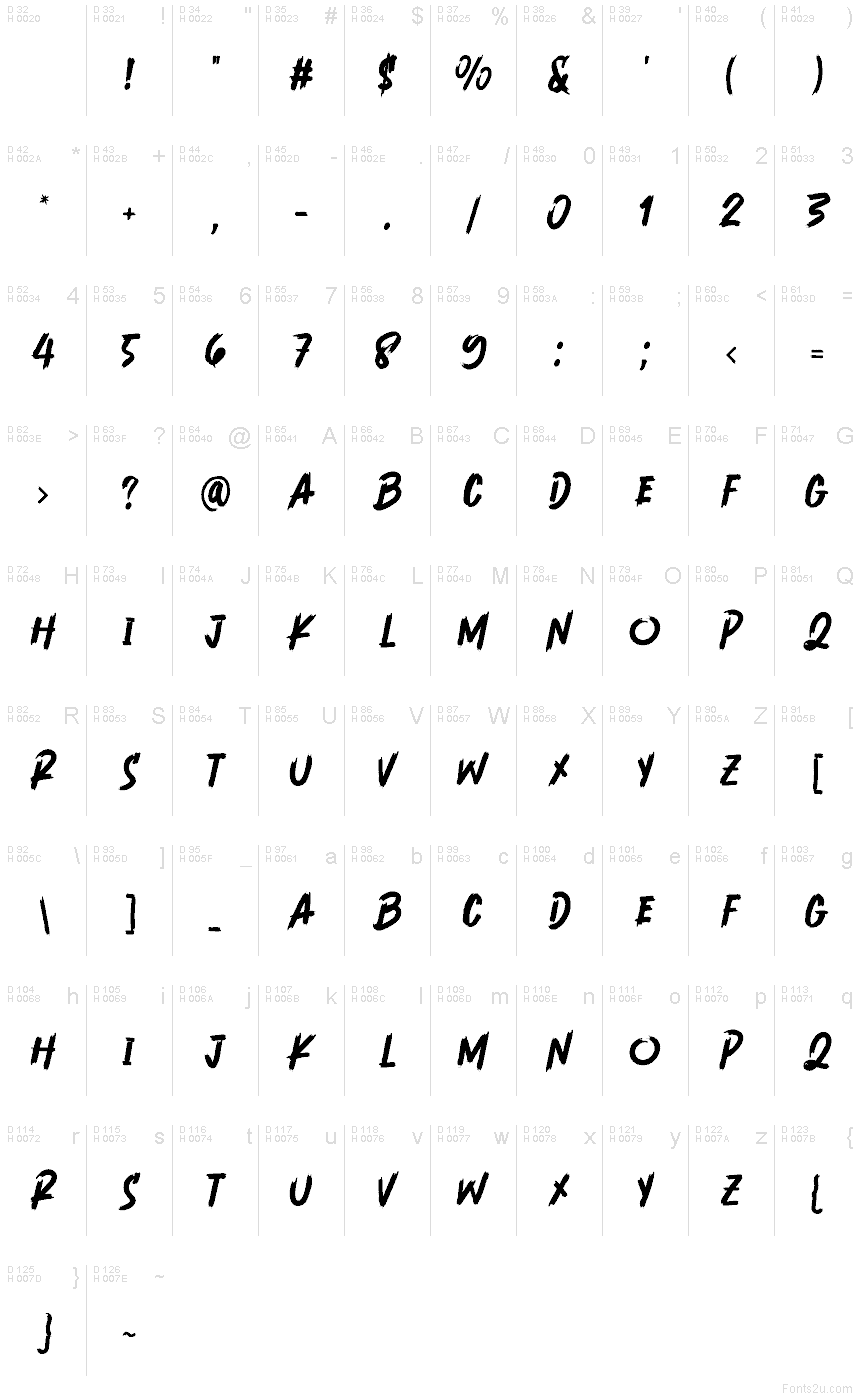
Stockport Brush font by Trequartista Studio is a free brush display font. Built for when you need hand-painted punch without sacrificing clarity, it gets the balance right between raw, inky texture and steady spacing. Thick swipes with torn, dry-brush edges and a confident forward slant create motion you can feel, while the Stockport family’s tuning keeps words readable at a glance.
Using Stockport Brush, headlines leap off streetwear lookbooks, food-truck menus, sports posters, event flyers, album covers, and bold packaging. This free font shines on short, high-impact lines and brand marks that want grit with control. Simple pairing tip: set body copy in a clean sans (medium weight, generous tracking) to let the brushwork breathe.